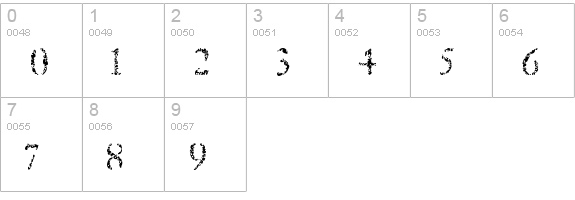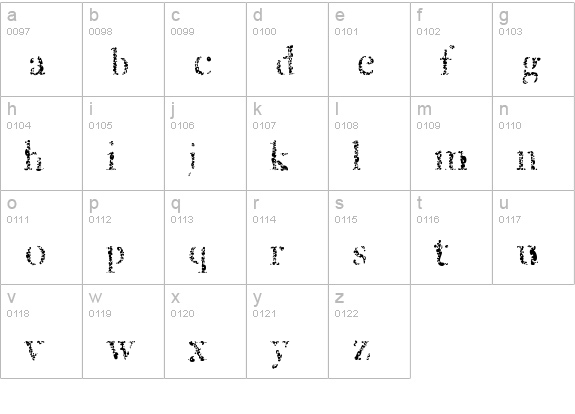
Sponged Font Details
Sponged font is a unique and eye-catching typeface that will add a touch of creativity to any project. Its playful design features a sponged texture that gives each letter a fun and whimsical appearance. Whether you're designing a poster, creating a logo, or crafting a greeting card, Sponged font will instantly grab attention and leave a lasting impression. What makes Sponged font even more appealing is that it is completely free to use. You can easily download this font without any hassle or cost. Just head over to FontsMarket.com, where Sponged font is freely available for download. With just a few clicks, you'll have access to this delightful typeface that will bring your designs to life. Sponged font offers a wide range of possibilities for your creative endeavors. Its bold and playful nature makes it perfect for children's books, party invitations, and social media graphics. The sponged texture adds a tactile element to your designs, giving them a unique and handmade feel. The versatility of Sponged font allows it to be used in both digital and print projects. Whether you're creating a website, designing a brochure, or crafting a poster, Sponged font will add a touch of charm and uniqueness to your work. Its legibility ensures that your message will be easily read and understood, while its distinctive style sets it apart from other fonts. Don't miss out on the opportunity to enhance your designs with Sponged font. Download it for free at FontsMarket.com and let your creativity soar. Whether you're a professional designer or just starting out, Sponged font is sure to become a valuable tool in your font collection. Embrace the playful and whimsical nature of this font and watch your designs come to life.